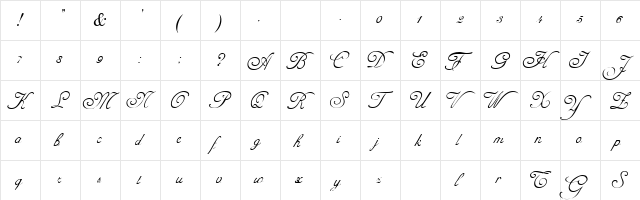
GE Adina Script Normal
Design Context for GE Adina Script Typeface
GE Adina Script brings a calligraphic fluidity to the page — its connecting strokes and expressive curves give it an unmistakably human quality.
Font Pairing: Combine GE Adina Script with a simple geometric sans for maximum contrast — the tension between flowing curves and clean structure is a classic typographic pairing.
Pro Tip: Use GE Adina Script for short runs of text — names, titles, or taglines. Extended body copy in script faces tires the eye quickly.